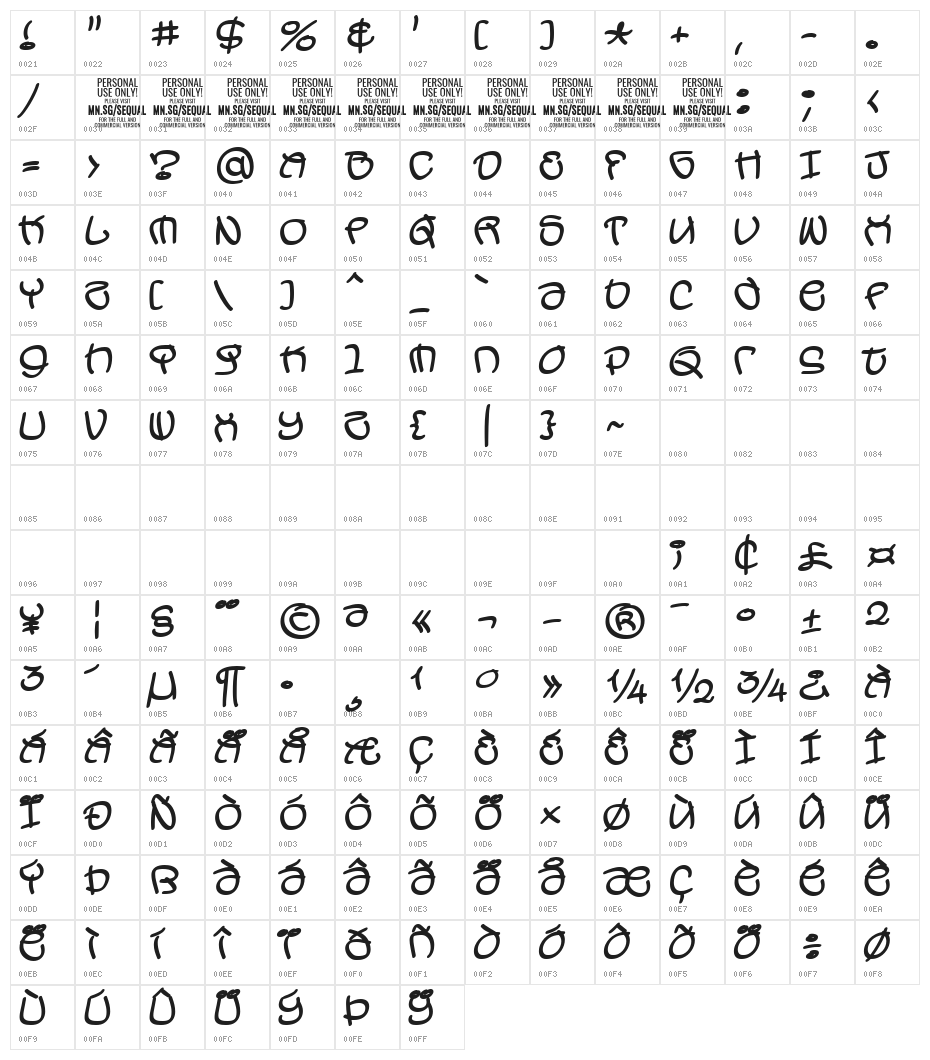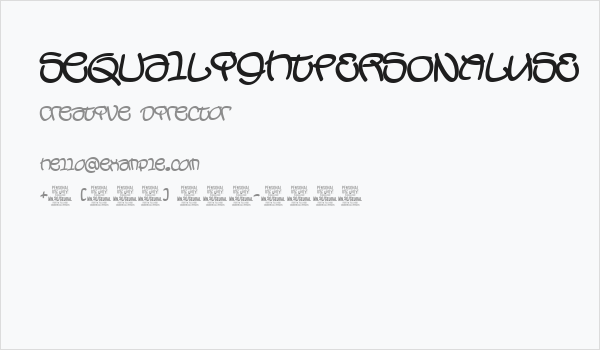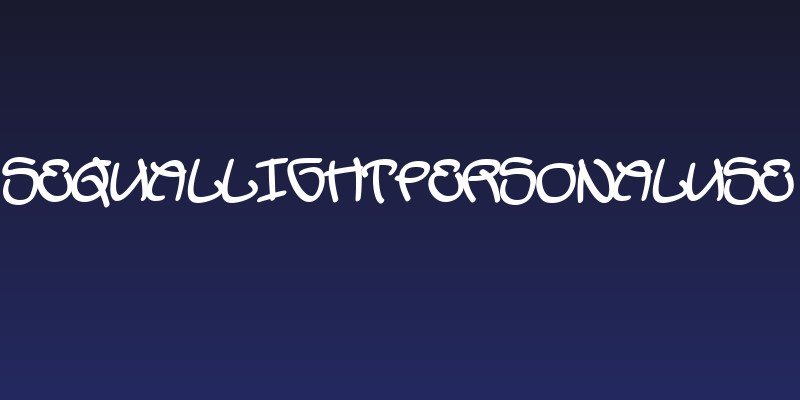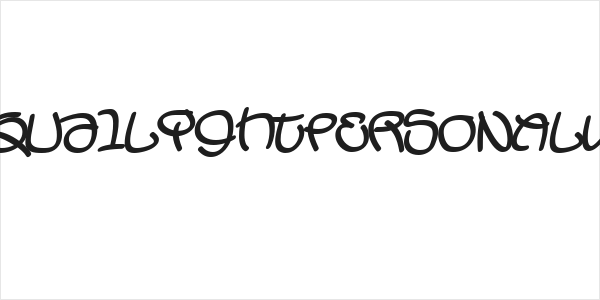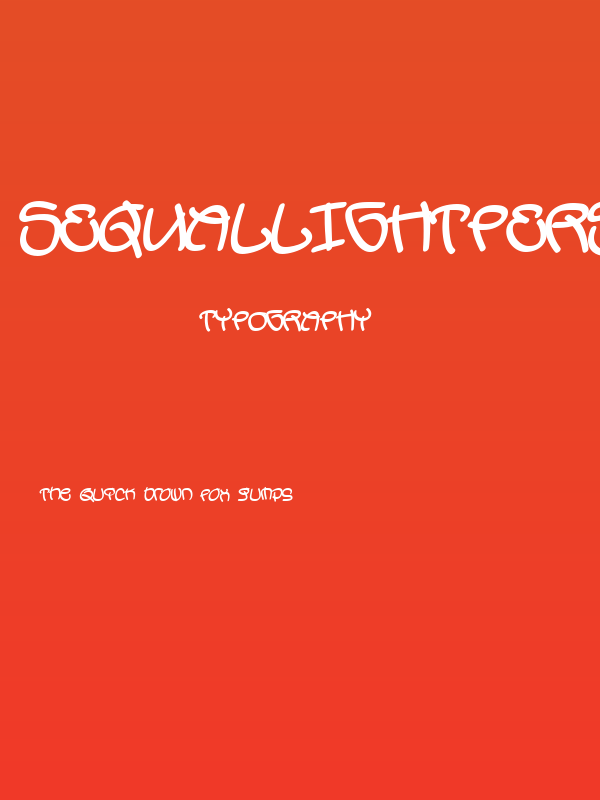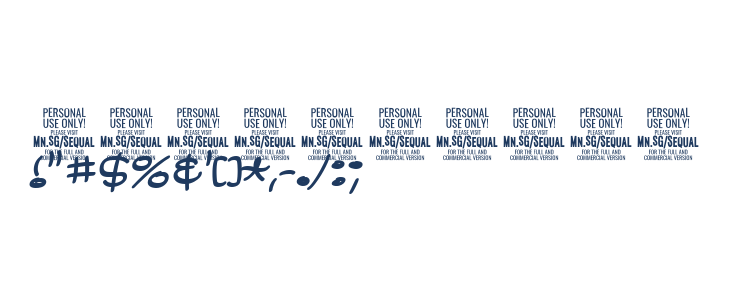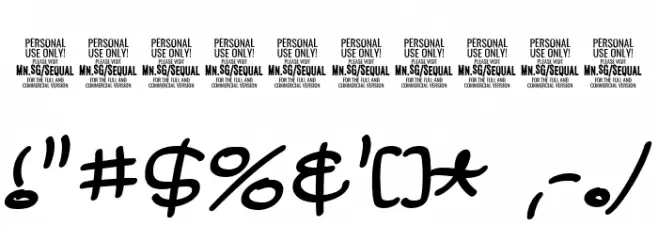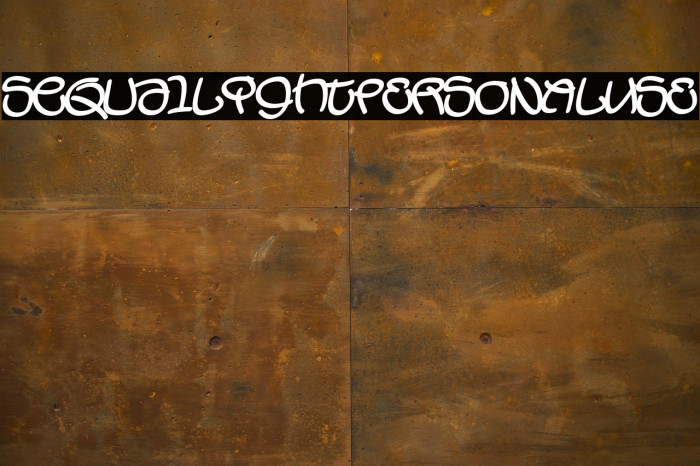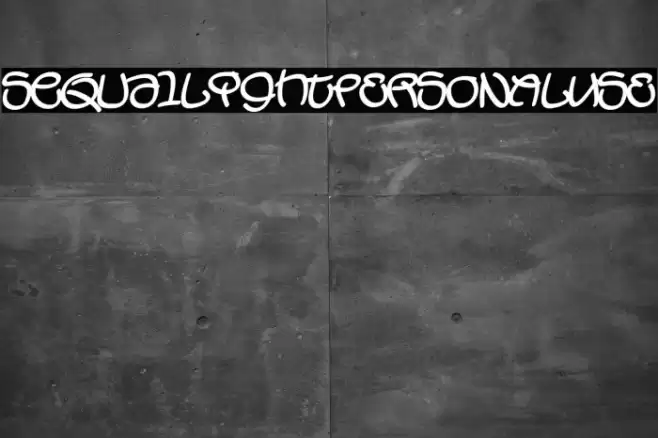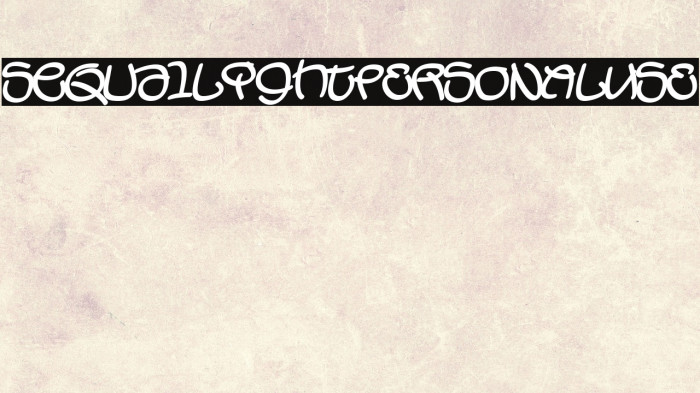
SequalLightPERSONALUSE Font
SequalLightPERSONALUSE Description
This font features a bold and expressive style with a handwritten appearance. The characters are uniquely crafted with a playful and artistic flair, making it stand out with its distinctive curves and loops. The uppercase and lowercase letters maintain a consistent flow, while the numbers and special characters complement the overall design. The font's bold strokes and dynamic shapes suggest a sense of movement and creativity, making it suitable for projects that require a personal and artistic touch.
| Use Case | Logos, Posters, Invitations |
| Proposed Projects | Ideal for creative projects such as posters, invitations, logos, and artistic branding materials. |